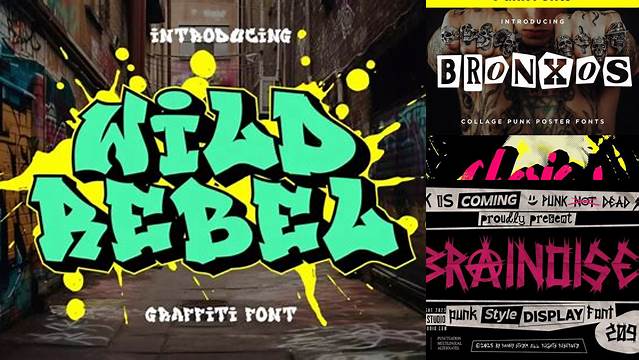
Free Punk Fonts: Unleash Your Inner Rebel!
Hey guys! Ever wanted to inject a dose of rebellious energy into your designs? Well, look no further! This article dives deep into the electrifying world of punk fonts, specifically focusing on the awesome free options available. We'll explore what makes a font truly 'punk,' how to identify the perfect typeface for your project, and where to snag these typographic treasures without spending a dime. Get ready to unleash your inner rebel and transform your creative projects with some seriously rad fonts!
What Defines a Punk Font? The Aesthetics of Rebellion
So, what exactly is a punk font, anyway? It's more than just a cool-looking typeface, my friends; it's about capturing the raw, defiant spirit of the punk rock movement. Think of it as visual anarchy, a deliberate rejection of mainstream norms. Punk fonts are all about breaking the rules, embracing imperfection, and making a bold statement. These fonts often reflect the DIY aesthetic that was so central to punk culture, embodying a sense of urgency and a refusal to be polished.
Punk fonts typically exhibit several key characteristics. Firstly, they're often incredibly bold and impactful. These fonts are designed to grab attention, whether it's on a flyer, a poster, or a website. They need to scream their message from the rooftops! Think thick, heavy strokes, strong serifs (or the complete absence of them), and a general sense of visual weight. Secondly, a good punk font will often incorporate a sense of imperfection or a hand-drawn feel. This can manifest in the form of rough edges, uneven lines, or a deliberately distressed appearance. This imperfect quality is a direct nod to the DIY ethos, reflecting the handmade nature of much of the punk art and design of the era. These fonts aren't afraid to look a little messy; in fact, they embrace it!
Another crucial element is the typography's overall attitude. A punk font should project a sense of attitude, whether through its name, its letterforms, or its overall aesthetic. They often convey a feeling of defiance, rebellion, and a disregard for convention. This might be achieved through sharp angles, jagged edges, or even the use of unconventional letter shapes. Finally, punk fonts often have a strong historical connection to the punk rock movement. Many of these fonts were directly inspired by the album art, gig posters, and fanzines of the late 1970s and early 1980s. Using a punk font is a way of tapping into this rich history and connecting your work to the cultural legacy of punk rock. They are a nod to the past and a way to keep the spirit of rebellion alive.
Finding Free Punk Fonts: Your Guide to Typographic Treasure
Alright, now for the good stuff: finding these typographic gems without emptying your wallet. Fortunately, there's a wealth of free punk fonts available online, just waiting to be discovered. Here's a breakdown of where to look and what to keep in mind while you're searching:
First off, Google Fonts is an excellent starting point. While not every font on Google Fonts is explicitly 'punk,' you can often find fonts with similar characteristics that you can adapt to your specific needs. Search for fonts with bold, blocky letterforms or those that have a distressed appearance. It's all about finding the right style for your project. Plus, Google Fonts makes it easy to download and use these fonts on your website or in your design software.
Also, consider checking out design blogs and resources. Many design blogs regularly feature roundups of free fonts, including punk fonts. These bloggers often curate selections of the best fonts available, saving you the time and effort of sifting through countless options. Keep an eye out for blogs that specialize in graphic design or typography; they're usually the first to discover new and exciting fonts.
Finally, don't be afraid to get creative with font combinations and modifications. Even if you can't find the perfect punk font right away, you can often achieve a similar effect by combining two or more fonts or by modifying an existing font. For example, you could add a grunge texture to a bold font or experiment with distorting the letterforms to create a unique look. The key is to let your creativity run wild and don't be afraid to break the rules. Remember the core tenet: punk fonts are all about challenging conventions.
Top Free Punk Fonts to Download Right Now
Ready to get your hands on some killer free punk fonts? Here are a few of my personal favorites to get you started. These fonts capture the essence of punk in their own unique ways, from gritty and raw to bold and in-your-face.
1. Blackletter Fonts: Often associated with the German punk scene, Blackletter fonts offer a strong, historic feel with their calligraphic shapes. Many free versions are available for download. These fonts are great for logos, headers, and creating a sense of tradition with a rebellious twist. You can give it a modern aesthetic that connects with the punk ideals of breaking barriers.
2. Grunge Fonts: These fonts are characterized by their distressed appearance, with textures and imperfections added to give the impression of wear and tear. They're perfect for conveying a raw, gritty aesthetic, ideal for posters, flyers, and any design that needs a bit of edge. Many free grunge fonts offer a wide range of textures and styles, allowing for a lot of creative flexibility. They're the visual equivalent of a perfectly ripped band t-shirt.
3. Stencil Fonts: Inspired by military stencils, these fonts offer a bold, industrial feel. Their clean lines and sharp edges make them incredibly readable, making them ideal for headings and other display text. Stencil fonts are great for designs that need to convey a sense of authority or defiance.
4. Graffiti Fonts: Reflecting the visual language of street art, graffiti fonts often feature bold, dynamic letterforms with drips, splatters, and other embellishments. They're perfect for capturing the energy and vibrancy of street culture. Graffiti fonts are a great choice for any design that needs to feel bold and creative.
5. Handwritten Fonts: While not always explicitly punk, many handwritten fonts offer a raw, imperfect feel that aligns perfectly with the punk aesthetic. These fonts can be great for creating a sense of authenticity and human touch. Remember that punk has an element of DIY, and a handwritten font reflects that core value.
Using Punk Fonts Effectively: Design Tips and Best Practices
Now that you've got your hands on some awesome punk fonts, how do you use them effectively? Here are some design tips and best practices to help you create visually stunning designs:
First and foremost, choose your font wisely. Consider the overall tone and message of your design. Does it need to be aggressive and rebellious, or slightly more subtle? Select a font that complements your content and target audience. Don't just pick the coolest-looking font, choose the one that best fits your brand.
Typography is a key element of your design. Once you've chosen a font, pay close attention to how you use it. Experiment with different sizes, weights, and colors to create visual hierarchy and interest. For example, using a bold punk font for your headlines and a more legible font for your body text is a good strategy. Remember that punk fonts can be less readable than standard fonts, so don't overdo it.
Spacing is also important. Ensure that your text is legible by adjusting the letter spacing, line height, and other typographic elements. Some punk fonts can be quite dense, so you might need to increase the spacing to improve readability. Good typography is always about making your message easy to understand.
Consider the overall composition of your design. Punk fonts often work well in bold, unconventional layouts. Don't be afraid to experiment with asymmetrical designs, overlapping elements, and bold color schemes. The goal is to create a design that grabs attention and reflects the rebellious spirit of punk rock.
Finally, test your design. Get feedback from others and make sure your message is clear and easy to understand. Does the font work well on both small and large screens? Does it convey the right tone? Your design has to be effective, not just aesthetically pleasing. Remember, punk is about substance and style. Effective design is also about thinking about your users.
Conclusion: Embrace the Rebellion
So there you have it, guys! A deep dive into the world of free punk fonts, including what to look for, where to find them, and how to use them effectively. Now it's your turn to experiment, to explore, and to unleash your inner rebel with these typographic treasures. Go forth, create, and don't be afraid to break the rules! The world of design is waiting for your unique, punk-inspired vision. Get out there and make some noise!